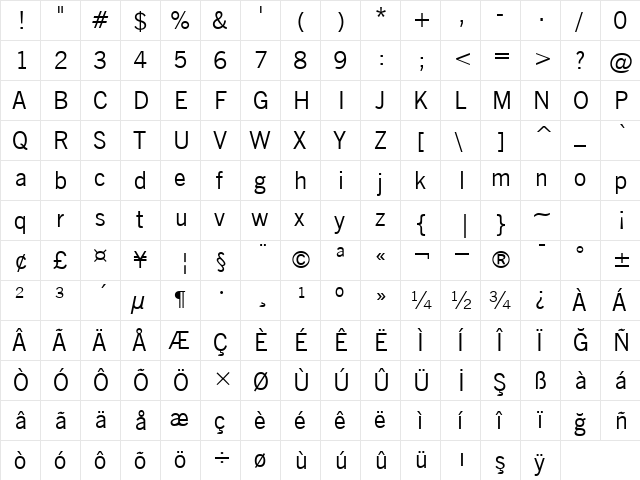
00929 Regular
Design Context for 00929 Typeface
00929 takes a measured approach to typography — its balanced proportions and neutral character make it a reliable workhorse for both digital and print work.